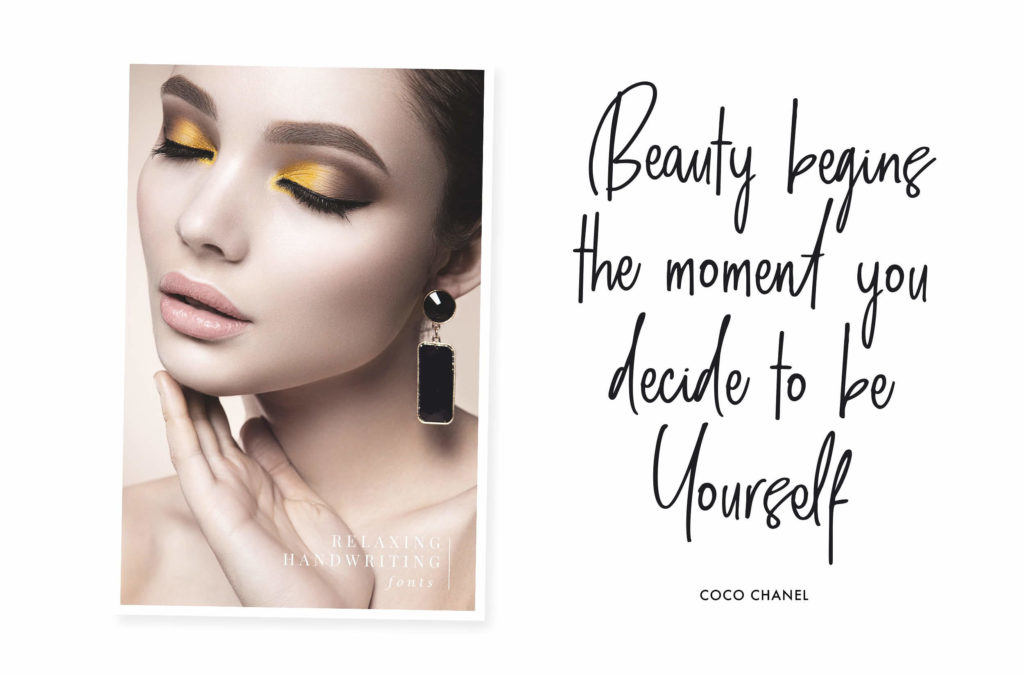
We are going to present a brand new script font. Introducing Breakfast and chill script font! This was designed by Ian Irwanwismoyo. This font gives a glamorous feminine touch to any kind of design.
This is a handwriting script font with edgy style concept implementation to give a few classy glam female touch to any kind of layout on this planet. Perfectly match for female style branding, brand, casual headline, website header, magazine content material, social media advertising, and marketing, touch the digital platform with the herbal handwriting feels.
Breakfast and Chill Script Font
A few classifications you may have heard of consist of vintage fashion, blackletter, or humanist. This unfastened font family has protected uppercase, lowercase, numbers & punctuations, multilanguage aid, stylistic alternates for every lowercase letter, and double letter ligatures to aim the seamless handwriting feels.